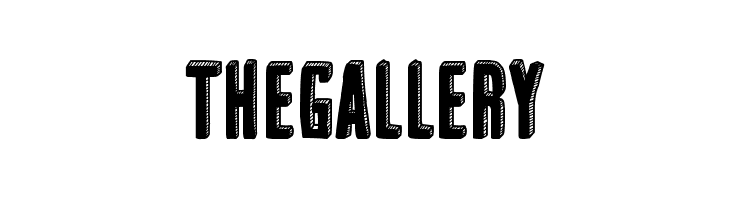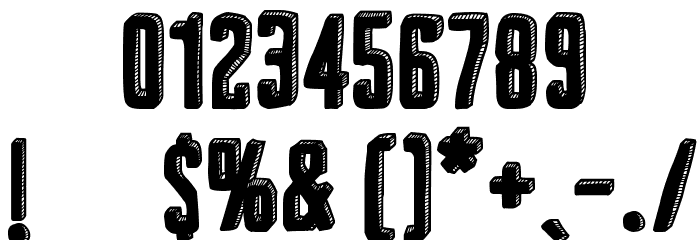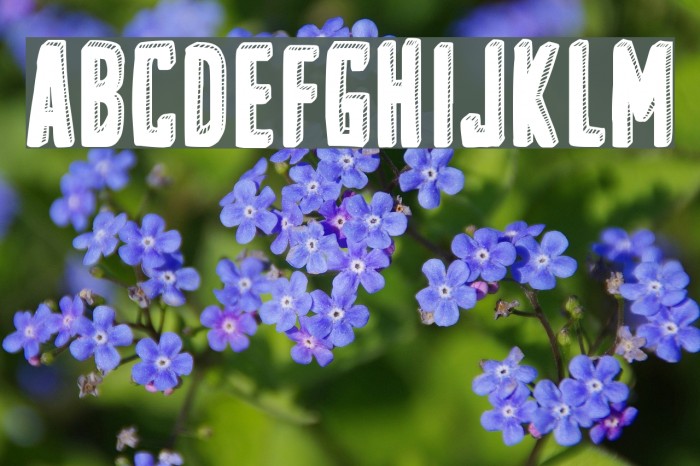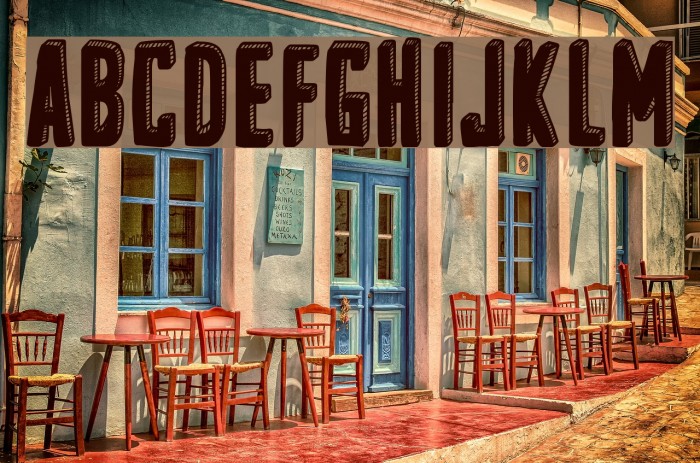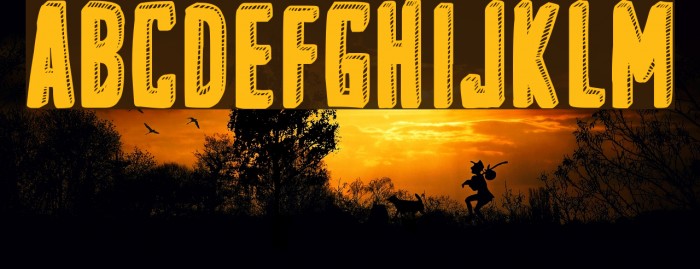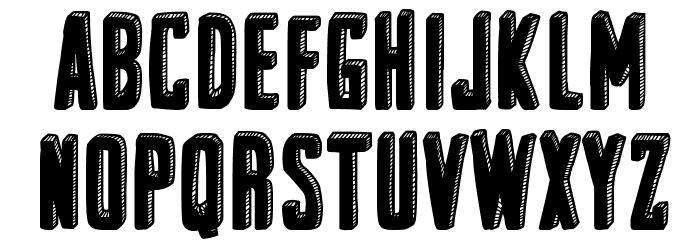
the Gallery Font
This font features a bold, decorative style with a unique hand-drawn appearance. Each character is filled with diagonal lines, giving it a textured, sketch-like look. The uppercase and lowercase letters maintain a consistent height, contributing to a cohesive visual impact. The numbers and special characters are designed with the same textured style, ensuring uniformity across all glyphs. This font's playful and artistic nature makes it stand out, ideal for projects that require a creative and eye-catching typeface.
A bold, decorative font with a hand-drawn, textured style.
• Proposed Projects: Ideal for posters, logos, branding, and creative projects that need a distinctive and artistic touch.
• Category: Decorative/Display
• Bold: Yes
• Italic: No
• Weight: Bold
• Width: Normal
• Character Spacing: Normal
• Contrast: Low
• Overall Style: Decorative
• Use Case: Headlines, Logos, Posters